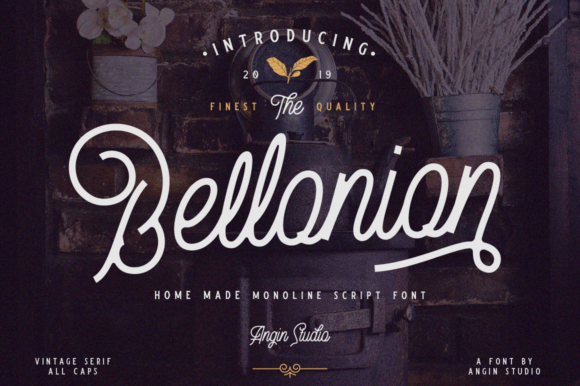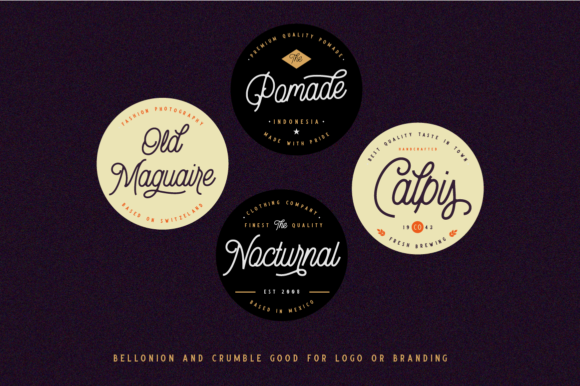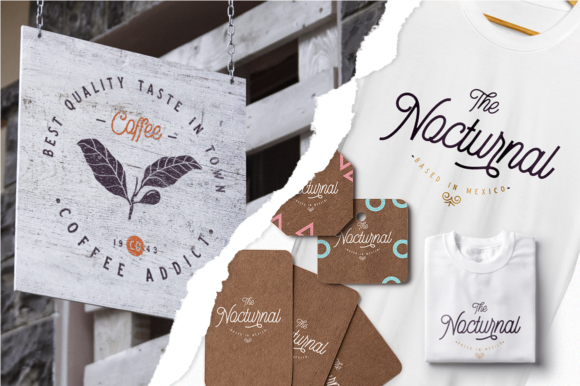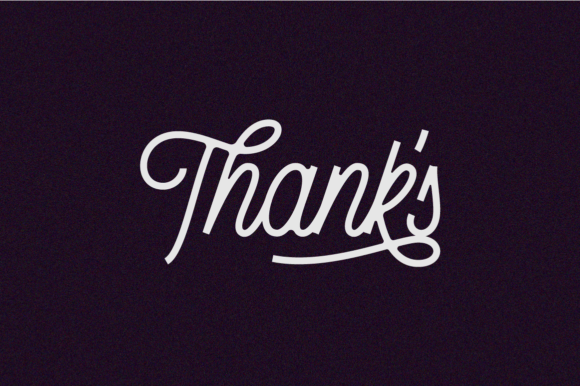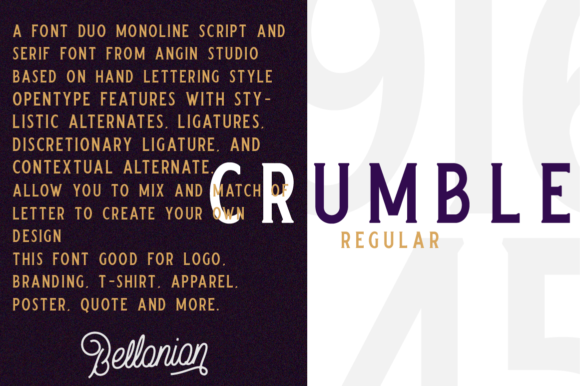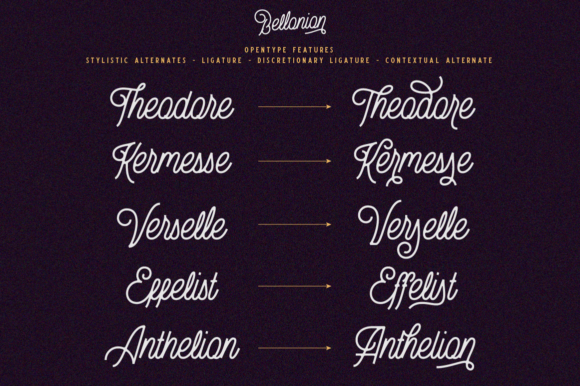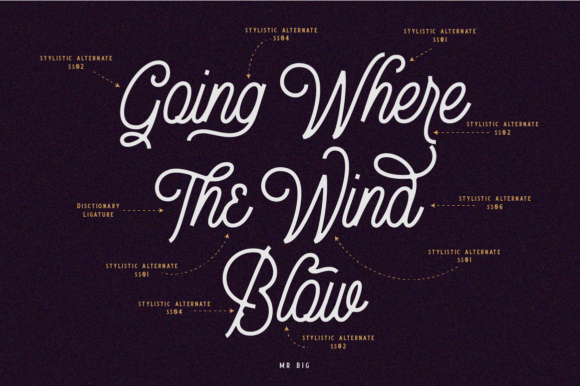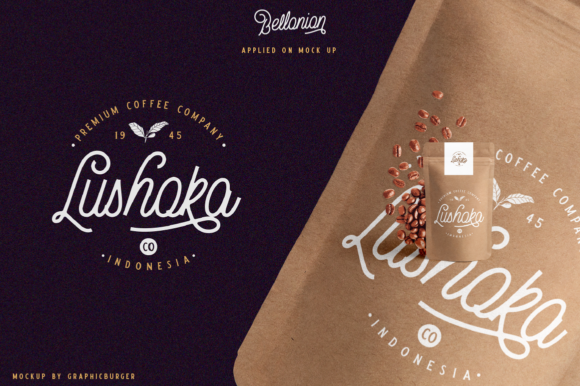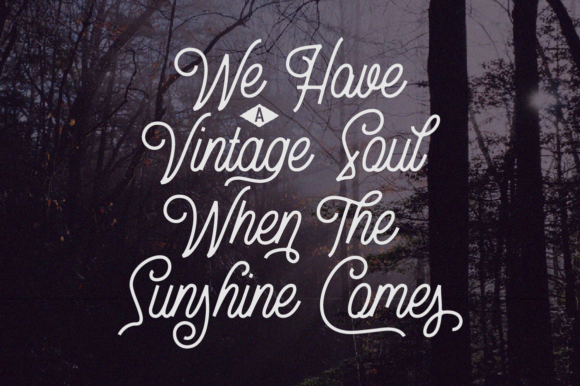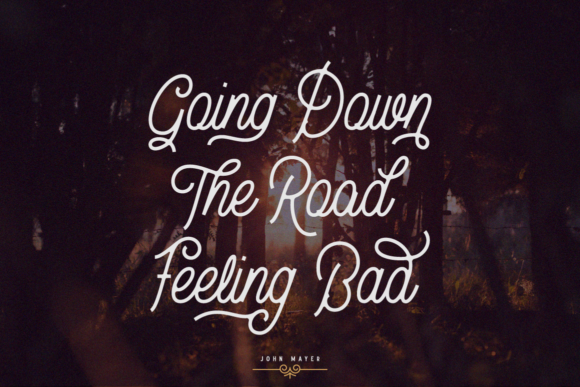
Bellonion Font
About Bellonion Font
Bellonion is a gorgeous and modern script font that will look great in any editorial or branding project. Get inspired by its authentic charm!